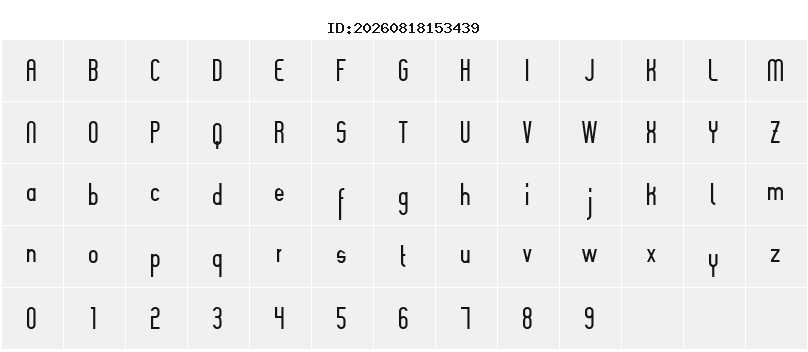
• Font Name: Slimania
• Full Font Name: Slimania
• Copyright: designed by Dieter Schumacher © 1999
About Slimania.ttf
Slimania.ttf is a modern, elegant sans-serif font designed for ultimate readability and visual harmony. Perfect for branding, headlines, web design, and print materials.